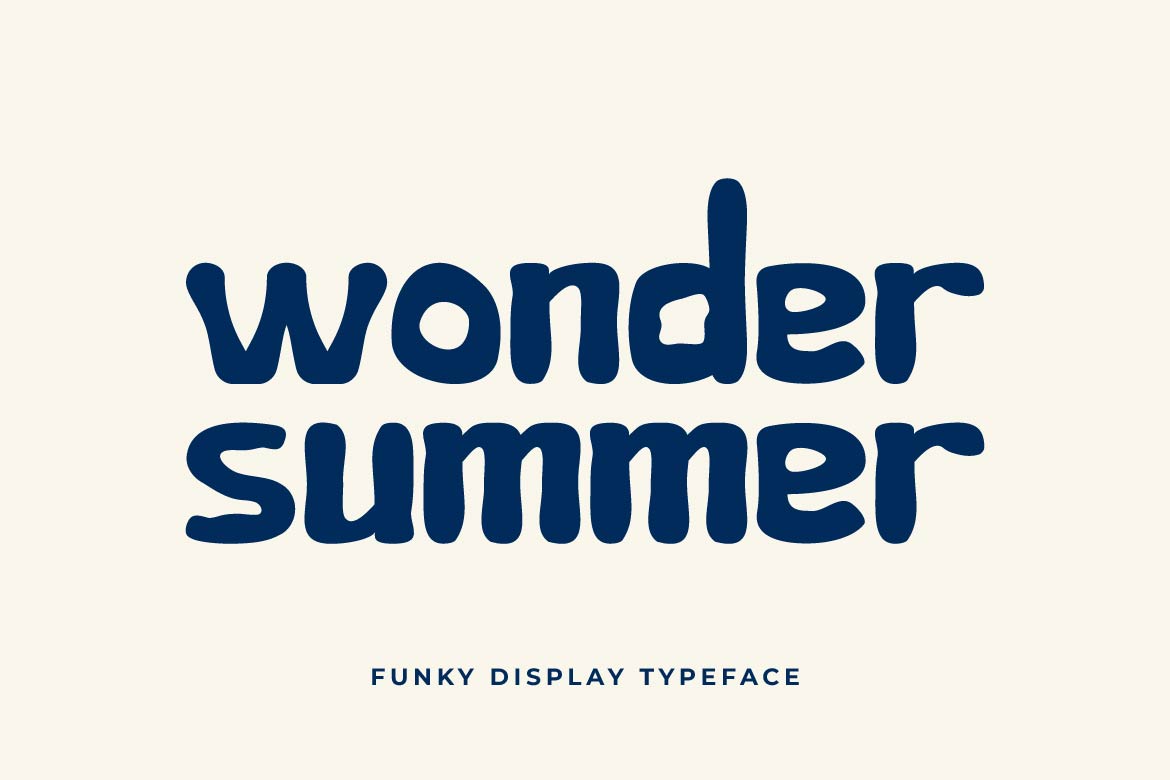
- Wonder Summer – Funky Display Typeface
Wonder Summer is a funky display typeface inspired by sunny days, tropical adventures, and carefree summer vibes. Featuring bold curves, playful letterforms, and expressive character, Wonder Summer instantly brings warmth, energy, and fun into every design.
Perfect for summer campaigns, beach events, travel promotions, lifestyle branding, food packaging, music festivals, children’s products, posters, merchandise, and social media content, this typeface creates cheerful visuals that capture attention. Its bold display style makes headlines pop while maintaining excellent readability and a friendly personality.
Whether you’re designing a tropical brand, a colorful festival poster, or vibrant marketing materials, Wonder Summer adds an energetic and joyful touch that makes every project feel alive.
Wonder Summer isn’t just a typeface—it’s a celebration of sunshine, creativity, and unforgettable summer memories.